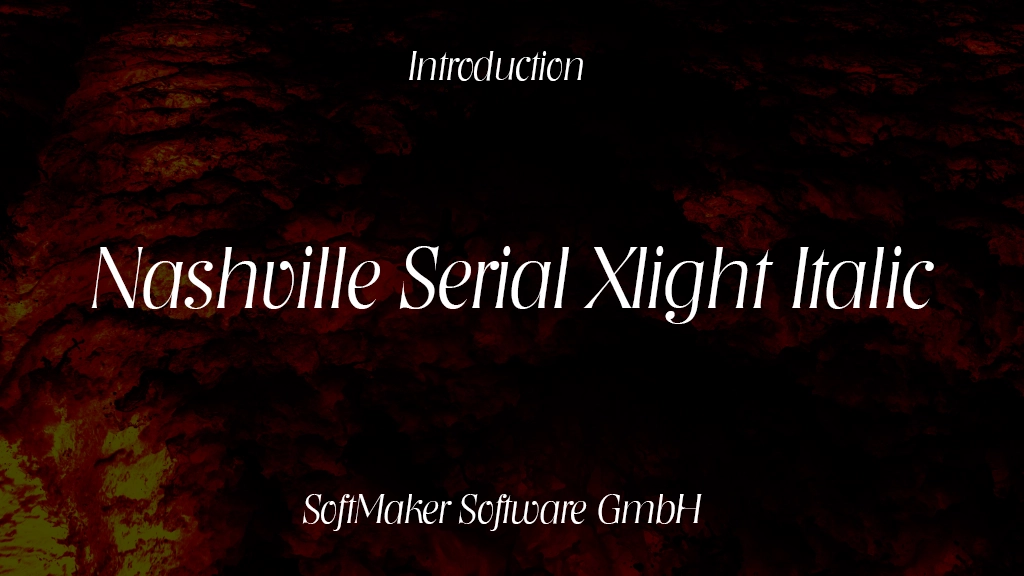
Nashville Serial Xlight Italic is a fun and stylish font that is perfect for a variety of designs. It is an Italic font, which means that the letters are slanted. It was designed by SoftMaker Software GmbH and is free to use for personal projects.